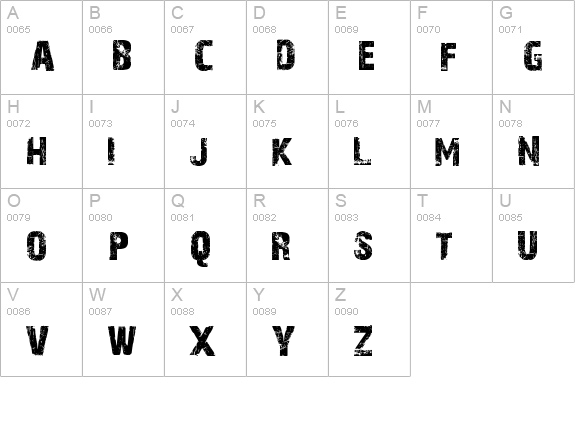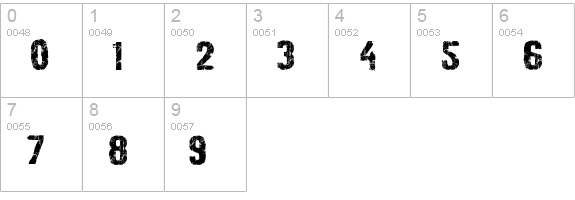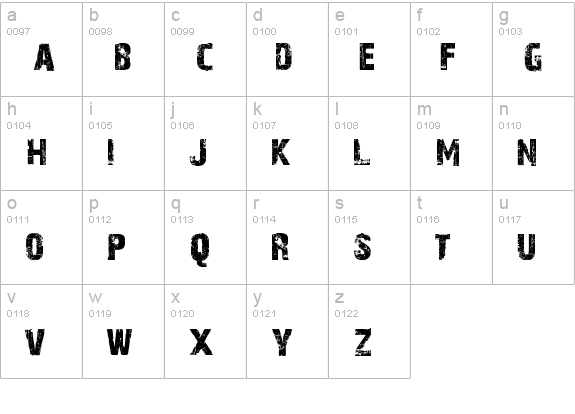
28 Days Later Font Details
Introducing the mesmerizing 28 Days Later font, a striking and captivating typeface that exudes a sense of urgency and intensity. Inspired by the post-apocalyptic world depicted in the renowned film of the same name, this font embodies the chaos and desperation of survival. With its bold and rugged letterforms, 28 Days Later demands attention and commands authority. Each character is meticulously crafted to convey a sense of urgency, with sharp angles and jagged edges that reflect the gritty atmosphere of a world in ruins. This font is perfect for projects that require a strong and impactful visual presence, such as movie titles, book covers, posters, and more. What sets 28 Days Later apart is its versatility. Whether you're aiming for a chilling and ominous effect or a bold and rebellious statement, this font can adapt to any creative vision. Its wide range of uppercase and lowercase letters, as well as numerals and symbols, allow for endless possibilities in design. The best part? 28 Days Later is freely available to download at FontsMarket.com. This means that you can unleash its powerful impact on your projects without any cost. It's a font that not only captures attention but also provides accessibility and convenience for all designers and creators. So why wait? Embrace the raw power and intensity of 28 Days Later font and let your designs speak louder than words. Download it now at FontsMarket.com and experience the freedom of creativity and expression that this font offers.